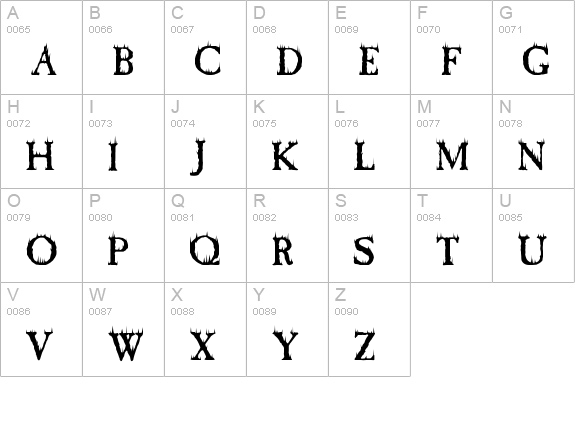
Cheap Fire font is a bold and dynamic typeface that exudes energy and intensity. With its fiery design and sharp edges, this font is perfect for making a bold statement in your projects. Whether you're creating posters, logos, or social media graphics, Cheap Fire font will grab attention and leave a lasting impression. The best part? Cheap Fire font is available for free download at FontsMarket.com. You can easily add this eye-catching font to your collection without any cost. Don't miss out on the opportunity to enhance your designs with the striking Cheap Fire font today!